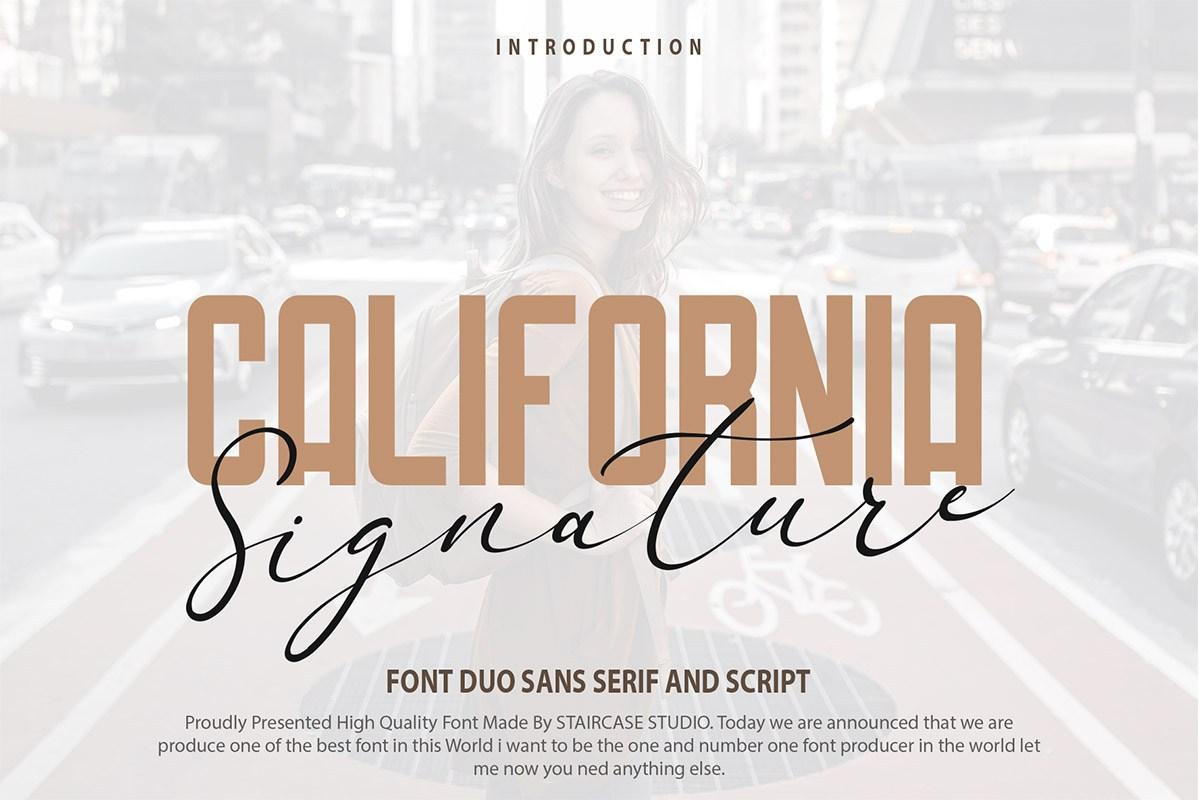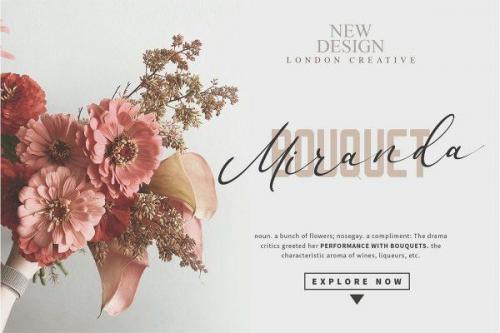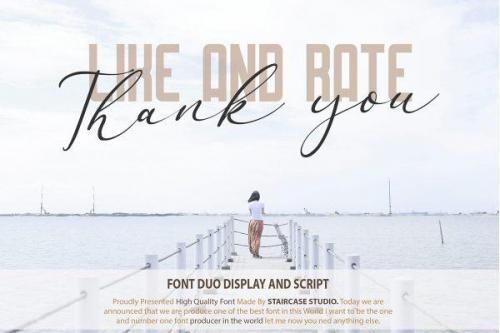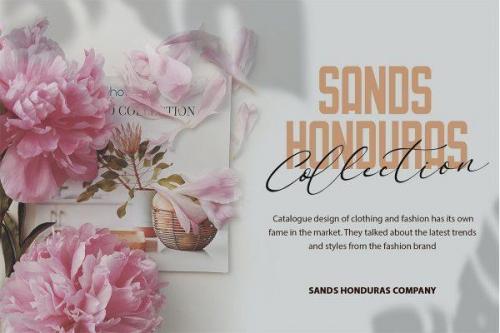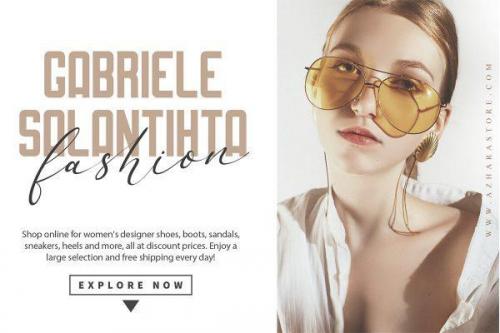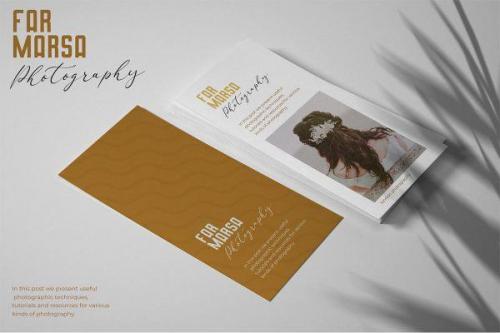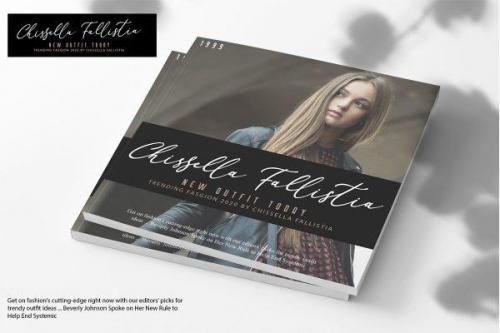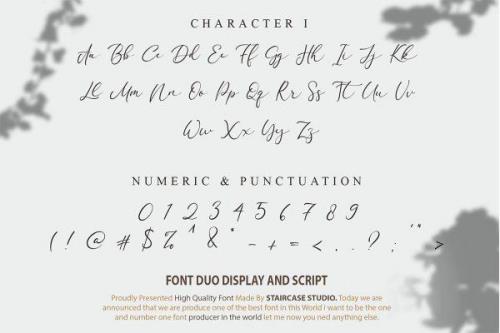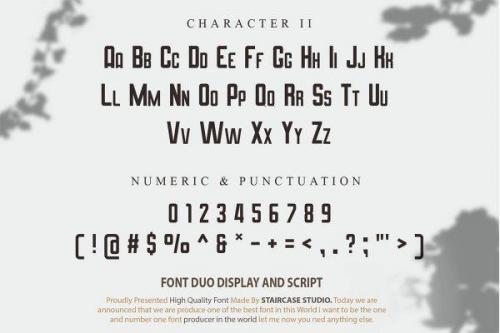
California Signature Font is a gorgeous font duo that unites condensed sans serif & signature-ish script together into a supercool package. It comes with 4 styles in total, awesome right?
The condensed versions are solid and intentionally making strong statements even in small spaces. In addition to the condensed sans, California Signature Font also provides the script version which has sleek cursive with thinline stroke and classy flow. It comes with various opentype alternates to achieve the natural handwriting look.
- Designer: Staircase Studio